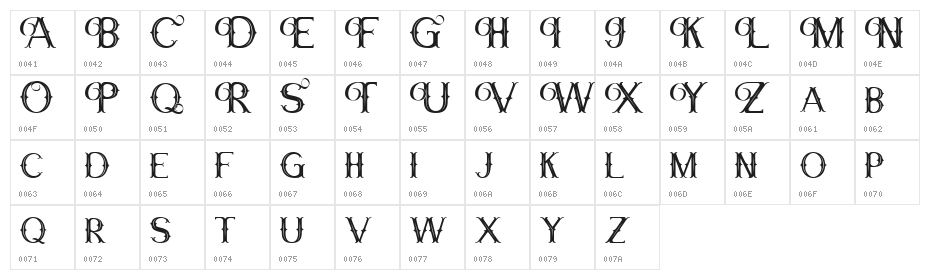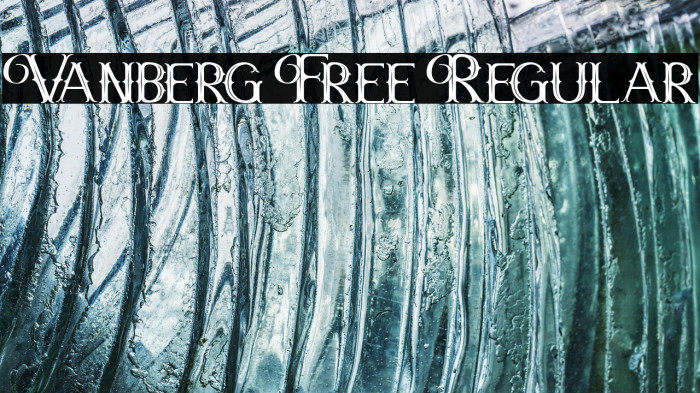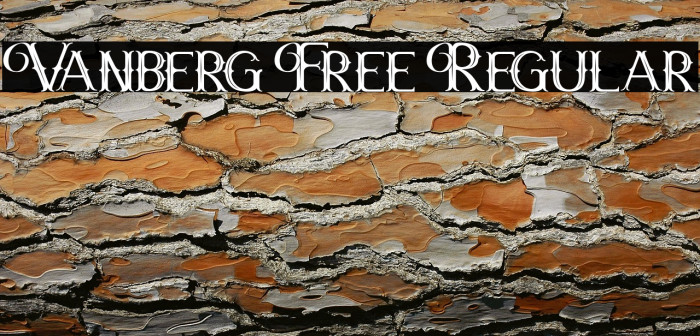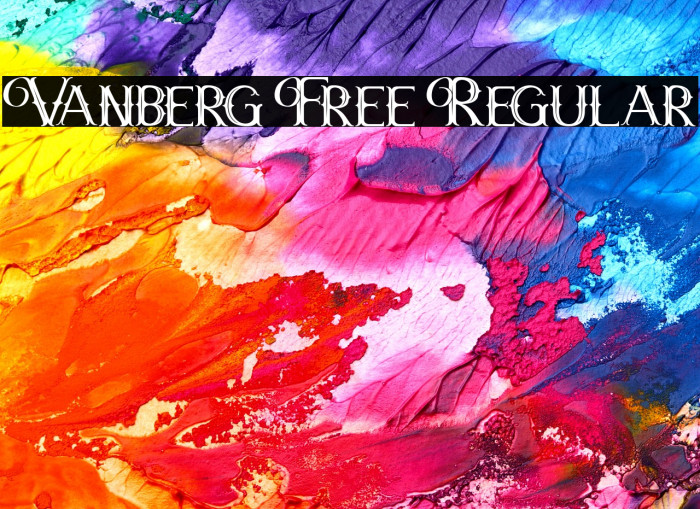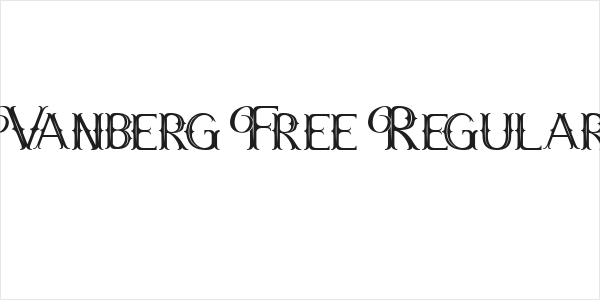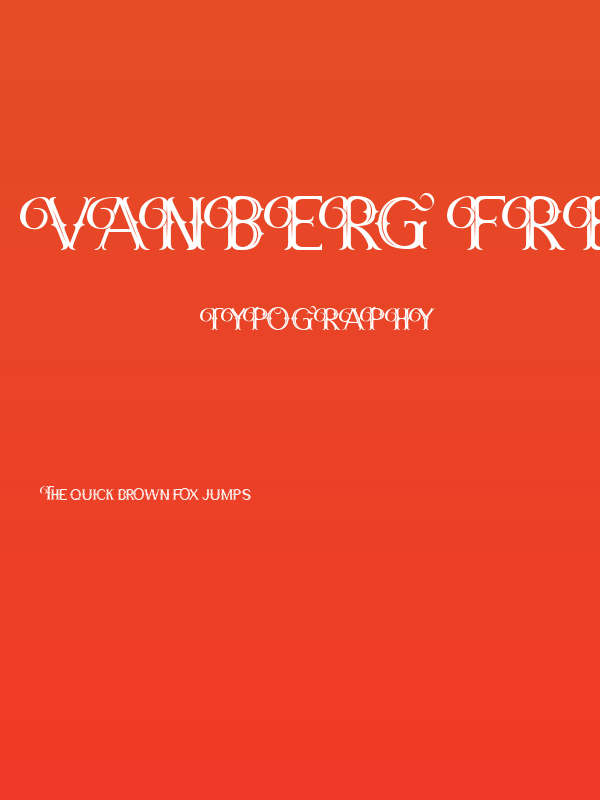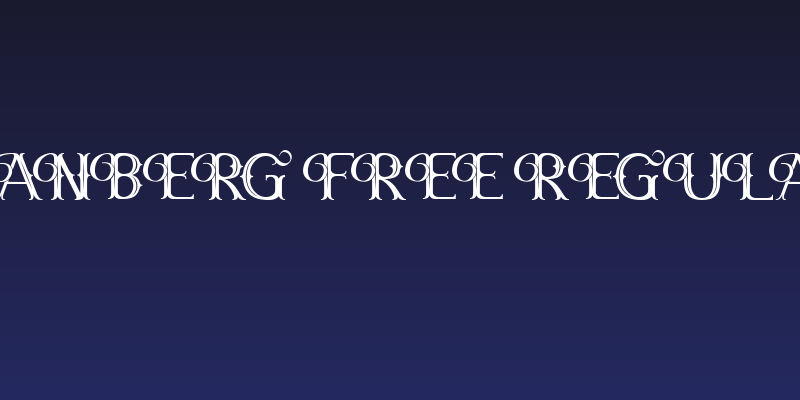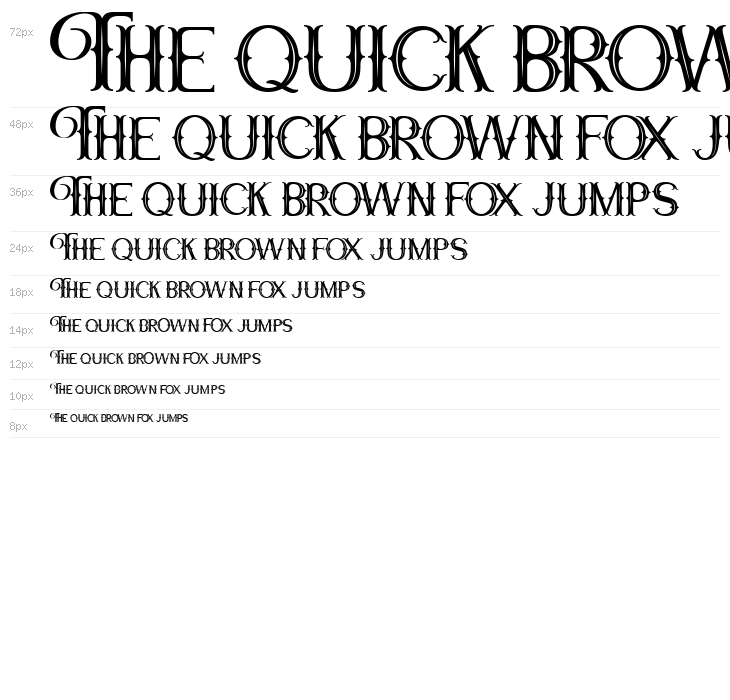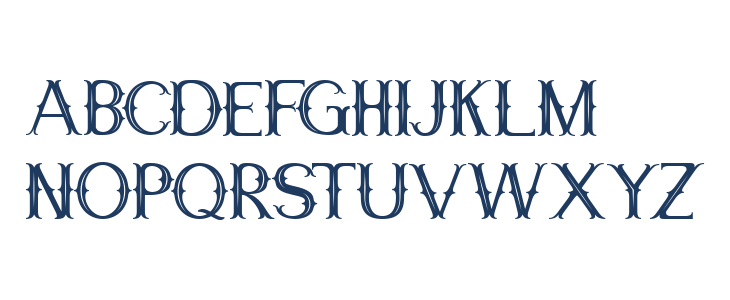
Vanberg Free Regular Font
Vanberg Free Regular Description
This font features an intricate and decorative style with elaborate swirls and flourishes extending from the characters. The uppercase letters are particularly ornate, showcasing a blend of traditional serif elements with modern decorative twists. The lowercase letters maintain a consistent style, ensuring readability while still embracing the font's unique flair. The numbers and special characters follow the same design principles, making them visually cohesive with the rest of the typeface. This font is ideal for projects that require a touch of elegance and sophistication, such as invitations, logos, or branding materials.
| Proposed Projects | Ideal for wedding invitations, luxury branding, and decorative headlines. |